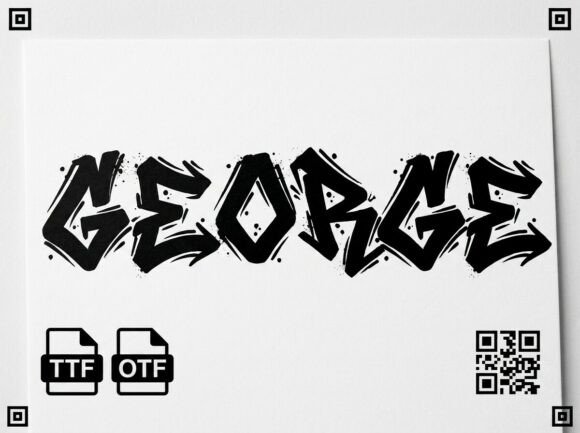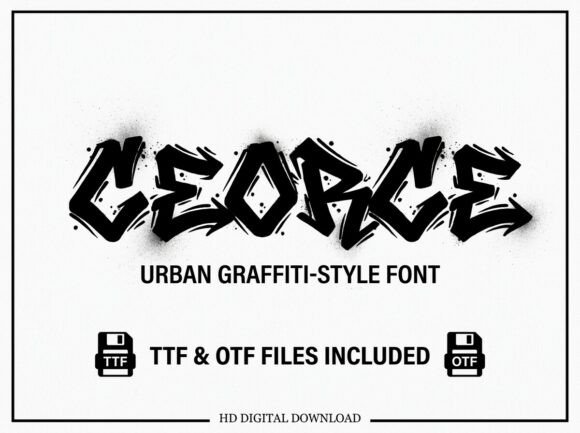
The George Font: A Stunning Decorative Display Font to Elevate Your Designs
Have you ever been working on a project, pouring your heart and soul into it, and then suddenly, you’re stuck on one thing: finding the perfect font? I recall a particularly frustrating experience when I was designing a logo for a client, and I just couldn’t find a font that captured the essence of their brand. That’s when I discovered the George Font, and it completely transformed my design. In this article, we’ll dive into the world of George Font, exploring its features, uses, and everything in between.
An Honest Review of George Font
So, what makes George Font so special? Let’s take a closer look.
What I Love About George Font
- ✨ Unique and artistic elements that add a touch of elegance to any design
- ✅ Strong visual personality that commands attention
- 💼 Versatile enough for bold headlines, artistic logos, and creative packaging
- 👍 Maintains a professional and polished finish
While George Font is an amazing decorative display font, there are a few things to keep in mind:
- ⚠️ It’s an ALL-CAPS (Uppercase Only) display typeface, which means it doesn’t include lowercase letters.
- 🤔 This font is specifically designed for high-impact headlines, logos, and decorative initials, so it may not be the best fit for body text or longer content.
As an OpenType font, George Font offers a range of features and glyphs to enhance your designs. Here are a few tips:
The Backstory of George Font
While the true story behind George Font remains a mystery, it’s easy to imagine that it was created by a designer who wanted to push the boundaries of typography. Perhaps they were inspired by the art deco movement and wanted to create a font that would evoke the glamour and sophistication of a bygone era.
| Is George Font suitable for body text? | No, George Font is specifically designed for high-impact headlines, logos, and decorative initials. It’s not recommended for body text or longer content. |